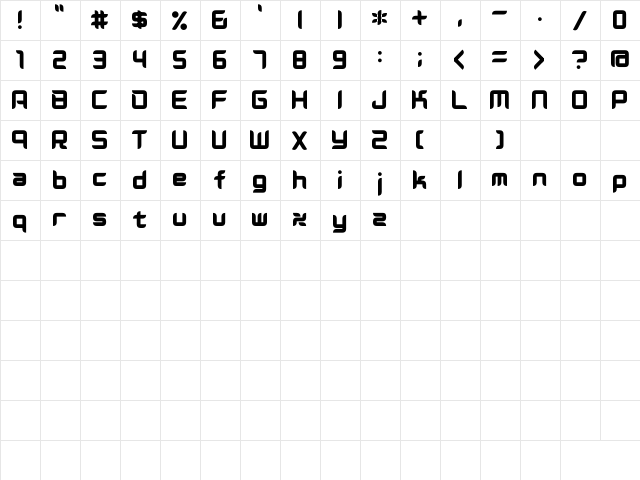
D3 Radicalism Regular
Design Context for D3 Radicalism
D3 Radicalism is a composed and adaptable typeface that performs quietly and consistently across a wide range of design contexts.
Pro Tip: Use D3 Radicalism in both headline and body roles to test its range before committing to a single application.